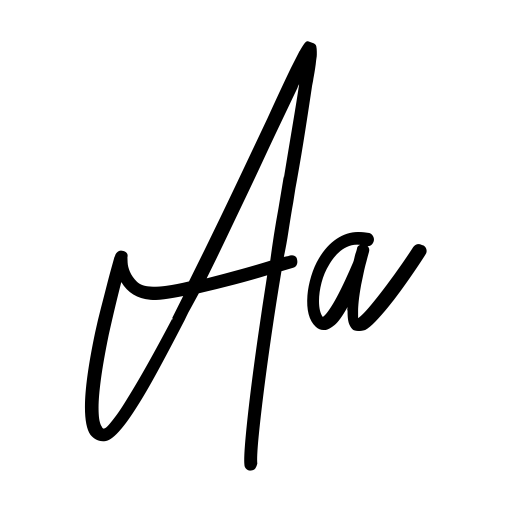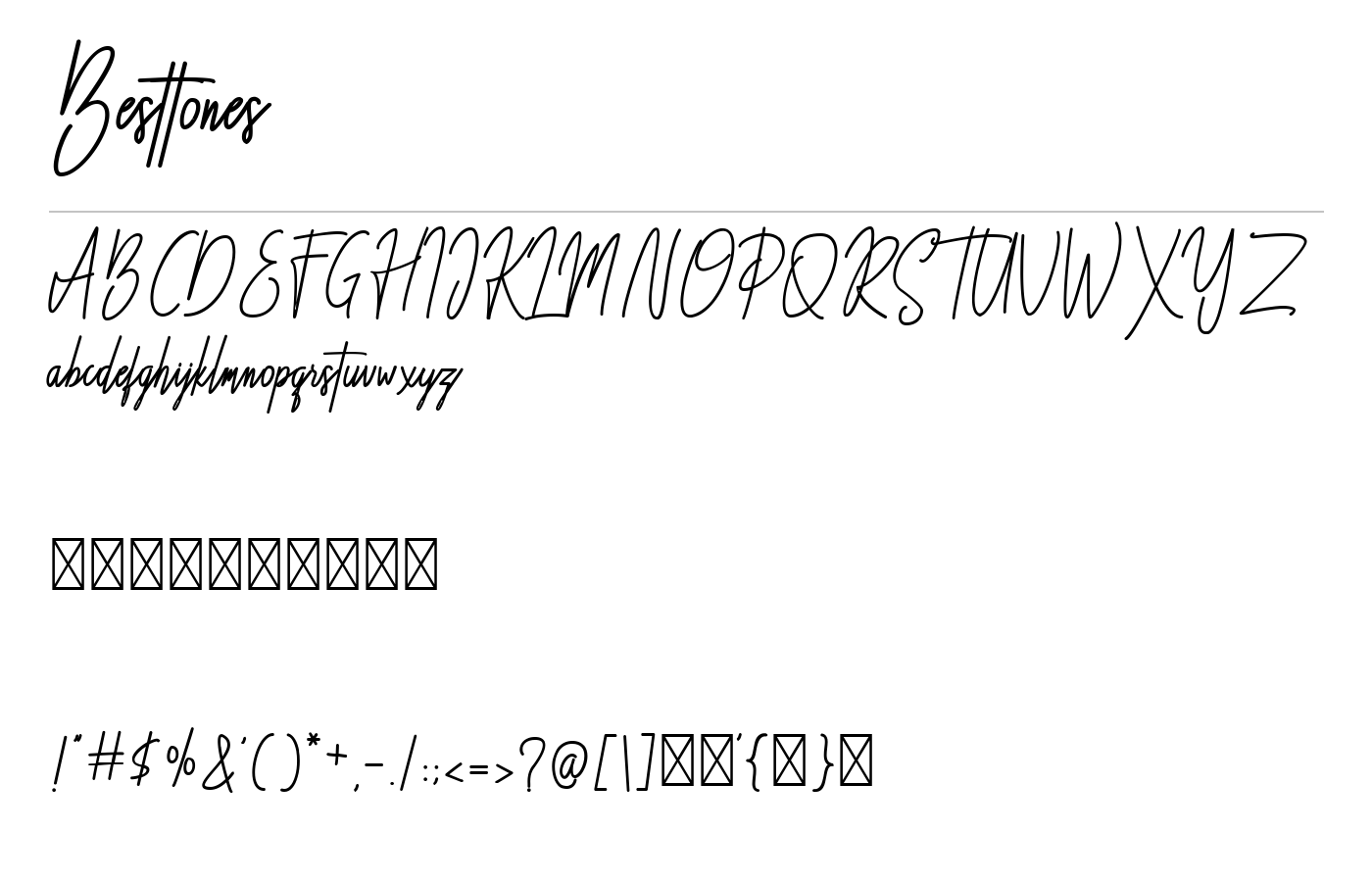
Besttones is a slender, elegant script font featuring tall, narrow letterforms with a casual, hand-drawn style that feels fresh and modern. Its smooth, flowing strokes and natural irregularities give it a personal and approachable vibe, making it ideal for creative branding, invitations, and stylish headlines where a touch of warmth and sophistication is desired.
Besttones Font
About Besttones Font
| Font family | Besttones Font |
| Designer | Indotitas Studio |